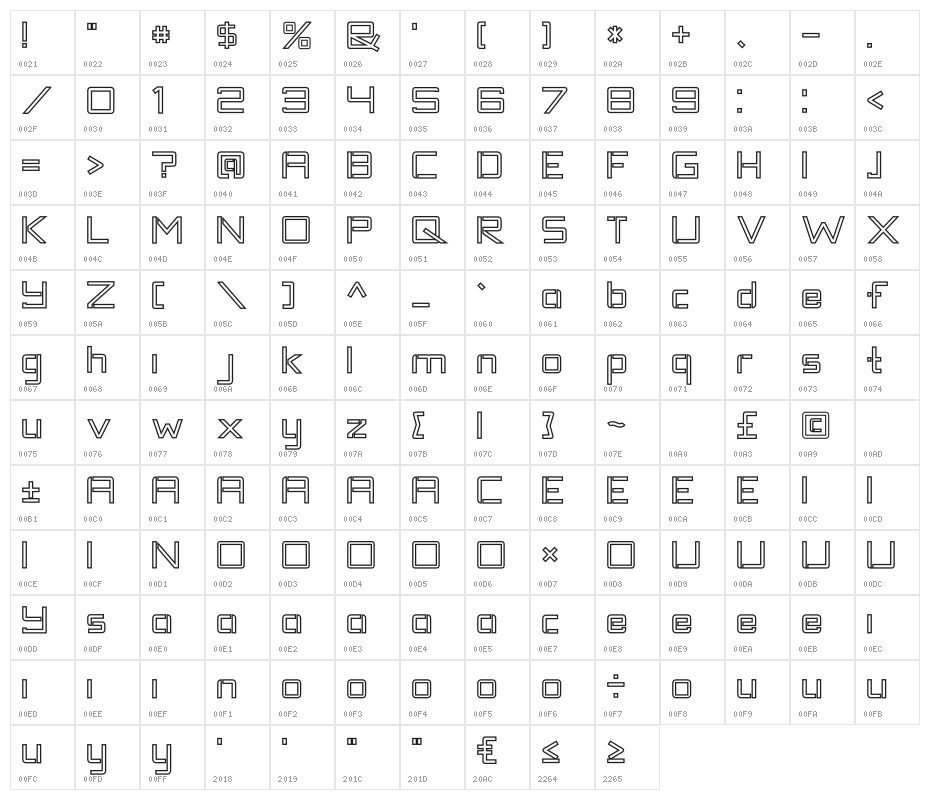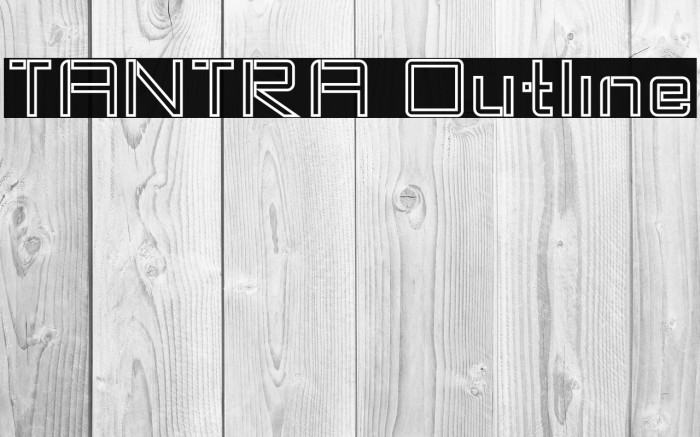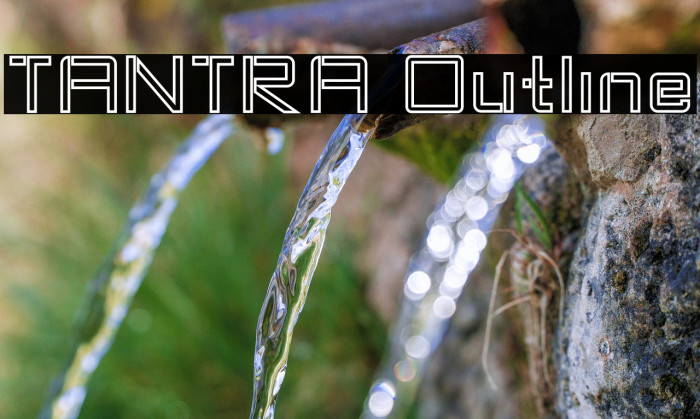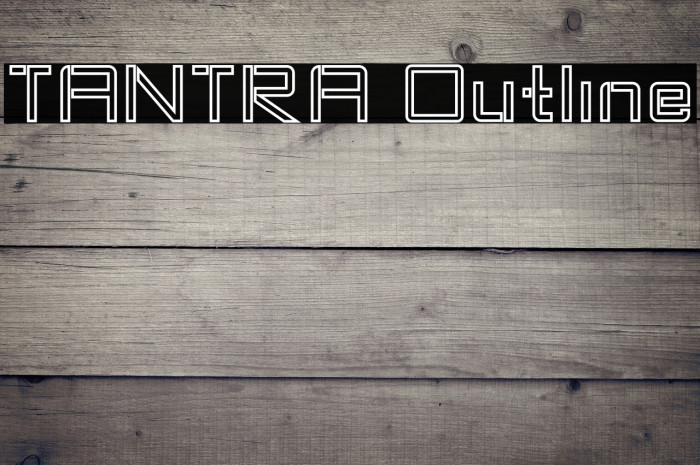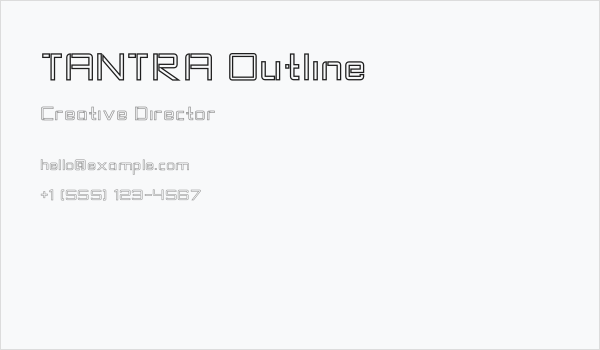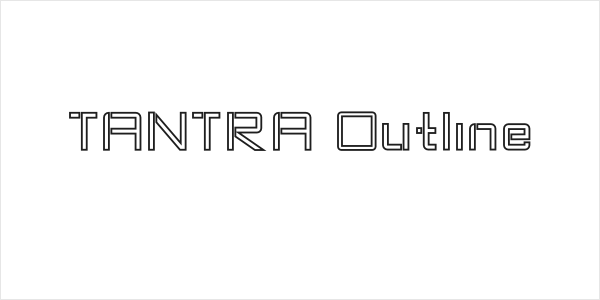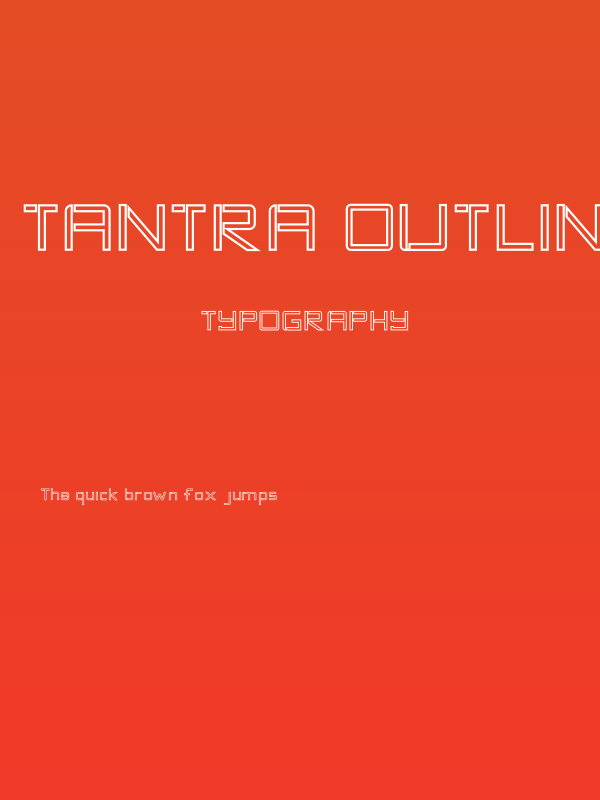
TANTRA Outline Font
TANTRA Outline Description
This font features a unique outline style that gives it a modern and futuristic appearance. The characters are constructed with a double-line technique, creating a hollow effect that is both eye-catching and distinctive. The uppercase and lowercase letters maintain a consistent geometric structure, with sharp angles and clean lines. Numbers and special characters follow the same design principles, ensuring a cohesive look across all elements. The font's design is minimalistic yet bold, making it suitable for projects that require a strong visual impact.